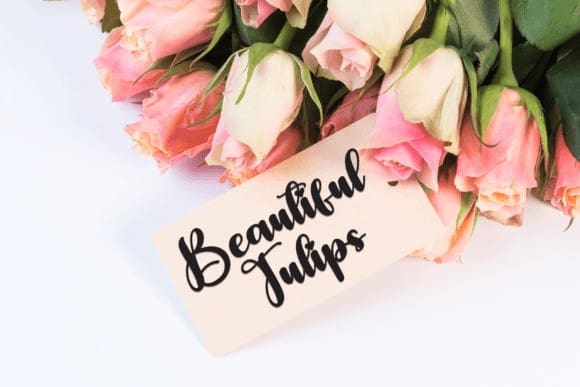
Pretty Barbie Font
Pretty Barbie Font is a sweet and friendly handwritten display font. Cute and fun, this font is ideal for writing wedding invitations, cards, or any other design that might need a fun touch!